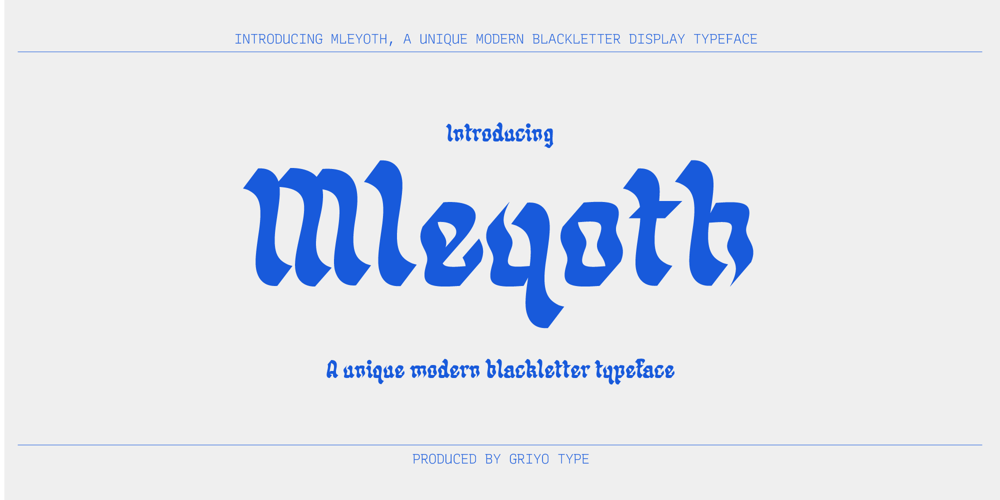
Mleyoth
Mleyoth font
Mleyoth Font Family was designed by Aprian Sembada and published by Griyotype. Mleyoth contains 1 styles and family package options. Mleyoth is a bold and detailed blackletter font. Masterfully designed to become a true favorite, this font has the potential to bring each of your creative ideas to the highest level!